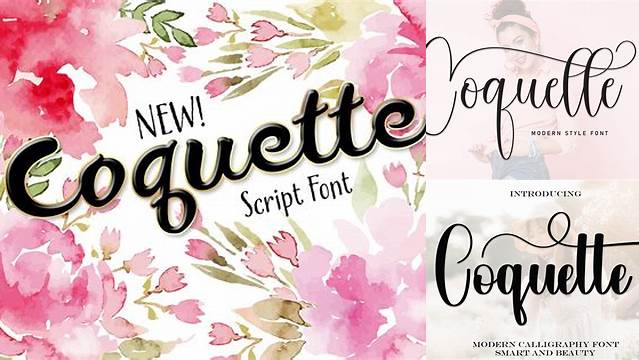
Adobe Coquette Font: Charming Uses & Pairings
Hey guys! Let's dive into the delightful world of Adobe Fonts Coquette! If you're looking to add a touch of whimsy and elegance to your designs, this font might just be your new best friend. In this article, we're going to explore everything about Coquette, from its history and characteristics to its best uses and how to pair it with other fonts. So, grab your favorite beverage, get comfy, and let's get started!
What is Adobe Fonts Coquette?
When we talk about Adobe Fonts Coquette, we're referring to a beautifully crafted typeface that falls into the script and display font categories. It's known for its flowing lines, delicate curves, and a certain je ne sais quoi that makes it stand out. Coquette isn't your run-of-the-mill font; it has personality, charm, and a touch of sophistication that can elevate any project. Think of it as the font equivalent of that perfectly chic outfit you throw on when you want to feel effortlessly stylish.
The design of Coquette Adobe Fonts is inspired by the elegance and flair of vintage calligraphy and hand-lettering. It was created to bring a human touch to digital typography, making it an excellent choice for projects that need a personal and inviting feel. Whether you're designing a wedding invitation, a blog header, or a branding package, Coquette can add that special something that makes your work memorable. The curves and swashes in Coquette are not just decorative; they contribute to the overall readability and flow of the text, making it both beautiful and functional.
Coquette is more than just a pretty face; it's a versatile font that can be used in various contexts. Its elegance makes it a natural fit for projects related to fashion, beauty, and lifestyle. Imagine it gracing the pages of a high-end magazine or adorning the logo of a boutique brand. But don't let its delicate appearance fool you – Coquette can also be used in more playful and informal settings. Think of it on a quirky café menu or a fun social media graphic. It’s this versatility that makes Coquette font Adobe a favorite among designers. The key is to use it thoughtfully and in a way that complements the overall aesthetic of your design.
One of the cool things about Coquette is the attention to detail in its design. Each letterform has been carefully crafted to ensure harmony and balance. The connections between letters are smooth and seamless, giving the font a natural, handwritten feel. This level of craftsmanship is what sets Coquette apart from other script fonts. It’s not just about looking pretty; it’s about creating a cohesive and visually appealing typographic experience. The subtleties in the design, such as the varying stroke weights and the elegant terminals, add depth and character to the font, making it a joy to work with.
Key Characteristics of Coquette Font
Let's break down the key characteristics that make Coquette font Adobe so unique and beloved in the design world. Understanding these features will help you appreciate its nuances and use it effectively in your projects.
Elegant Curves and Swashes: The most defining feature of Coquette is its elegant curves and swashes. These flowing lines give the font a sense of movement and grace, making it perfect for projects that need a touch of sophistication. The swashes, in particular, add a decorative flourish that can elevate headlines and titles. They're not just for show, though; they also contribute to the overall rhythm and flow of the text. The curves and swashes make Coquette visually engaging and memorable, which is why it's often used in branding and marketing materials.
Handwritten Feel: Coquette is designed to mimic the look of handwritten calligraphy, which gives it a personal and inviting quality. This human touch makes it a great choice for projects that need to feel authentic and approachable. The subtle variations in stroke weight and the natural connections between letters contribute to this handwritten feel. When you use Coquette, it's like adding a signature to your design, a mark of quality and craftsmanship. This characteristic makes it especially well-suited for invitations, greeting cards, and personal correspondence.
High Readability: Despite its decorative elements, Coquette maintains a high level of readability. The letterforms are clear and well-defined, and the spacing is carefully considered to ensure that the text is easy to read. This is an important factor, as beauty shouldn't come at the expense of functionality. Coquette strikes a balance between aesthetics and legibility, making it a versatile choice for a wide range of applications. Whether you're using it for body text or headlines, you can be confident that your message will be conveyed clearly.
Versatile Style: Coquette Adobe Fonts isn't a one-trick pony; it's a versatile font that can adapt to different styles and contexts. It can be elegant and sophisticated, playful and whimsical, or even modern and chic, depending on how you use it. This adaptability makes it a valuable asset in any designer's toolkit. You can use it for a wide range of projects, from branding and advertising to web design and print materials. The key is to understand its strengths and use it in a way that complements the overall design.
Part of Adobe Fonts: Being part of the Adobe Fonts library gives Coquette several advantages. It ensures that the font is well-maintained, optimized, and easily accessible to Adobe Creative Cloud subscribers. This also means that you can use Coquette in your projects without worrying about licensing issues or compatibility problems. Adobe Fonts integrates seamlessly with Adobe Creative Suite applications, making it easy to use Coquette in your designs. This accessibility and reliability make Coquette a practical choice for professional designers and hobbyists alike.
Best Uses for Coquette Font
Now that we know what makes Coquette so special, let's explore the best ways to use this charming typeface. Knowing where Coquette shines will help you make informed decisions in your design projects and ensure that you're using it to its full potential.
Wedding Invitations and Stationery: Coquette is a natural fit for wedding invitations and stationery. Its elegant curves and handwritten feel add a touch of romance and sophistication to any wedding-related design. Imagine your names beautifully scripted in Coquette on a save-the-date card or a thank-you note. The font's delicate appearance complements the celebratory nature of weddings, making it a popular choice for couples who want to create a memorable and stylish impression. The swashes can be used to add extra flair to headlines and titles, while the overall readability ensures that all the important details are conveyed clearly.
Branding for Feminine Businesses: If you're branding a business that caters to a feminine audience, Coquette can be an excellent choice. Its soft, elegant style aligns well with industries such as beauty, fashion, and lifestyle. Think of a logo for a boutique skincare brand or the website design for a women's clothing store. Coquette can help convey a sense of sophistication and style, attracting the right customers and creating a strong brand identity. The font's versatility allows it to be used in various branding materials, from business cards to social media graphics, ensuring a consistent and cohesive look.
Blog Headers and Website Design: Coquette can add personality and charm to blog headers and website designs. Its unique character makes it stand out and grab the attention of visitors. Using Coquette in your website's headings and titles can help create a visually appealing and engaging experience for your audience. However, it's important to use it sparingly and in combination with a more readable body font to ensure that your website is user-friendly. Coquette can also be used in website graphics and banners to add a touch of elegance and style.
Greeting Cards and Personalized Gifts: For greeting cards and personalized gifts, Coquette's handwritten feel adds a personal touch that's hard to resist. Whether you're designing a birthday card, a thank-you note, or a custom print, Coquette can help convey your message in a heartfelt and stylish way. The font's elegance makes it suitable for various occasions, from birthdays and anniversaries to holidays and celebrations. The swashes can be used to add extra decoration and make your design even more special. Using Coquette in personalized gifts shows that you've put thought and care into your creation, making it all the more meaningful.
Social Media Graphics: In the world of social media, visual appeal is crucial. Coquette can help your graphics stand out and attract attention. Its unique style makes it a great choice for creating eye-catching posts, stories, and ads. Use Coquette in your headlines and captions to add a touch of elegance and personality to your social media content. However, keep in mind that social media is a fast-paced environment, so it's important to use Coquette sparingly and in combination with clear and concise messaging. The font's versatility allows it to be used in various social media platforms, from Instagram and Pinterest to Facebook and Twitter.
Pairing Coquette with Other Fonts
Font pairing is an art, and mastering it can elevate your designs from good to great. When it comes to pairing Coquette with other fonts, the goal is to find typefaces that complement its elegance and readability without overshadowing it. Here are some tips and suggestions to help you create harmonious and visually appealing designs.
Serif Fonts: Pairing Coquette with a classic serif font can create a sophisticated and timeless look. Serif fonts, with their small decorative strokes at the end of each letter, have a traditional and formal feel that complements Coquette's elegance. Fonts like Times New Roman, Garamond, or Baskerville can work well with Coquette, especially in projects that need a touch of classic charm. The contrast between Coquette's flowing curves and the serif font's structured letterforms can create a visually interesting and balanced design. When using serif fonts with Coquette, make sure to choose a typeface that's highly readable, especially for body text.
Sans-Serif Fonts: Sans-serif fonts, which lack the decorative strokes of serif fonts, can provide a clean and modern contrast to Coquette's elegance. Pairing Coquette with a sans-serif font can create a balanced and contemporary design. Fonts like Helvetica, Arial, or Open Sans are good choices for body text when using Coquette for headlines or titles. The simplicity of the sans-serif font allows Coquette to shine without being overpowered. This combination is particularly effective in web design, where readability is crucial. When choosing a sans-serif font, consider its weight and style to ensure it complements Coquette's personality.
Script Fonts (Use Sparingly): While Coquette is a script font itself, it can sometimes be paired with another script font, but this should be done sparingly and with caution. Using two script fonts in the same design can be tricky, as they can easily clash and create a cluttered look. If you choose to pair Coquette with another script font, make sure the second font is significantly different in style and weight. A lighter, more subtle script font can work well as a secondary typeface, but avoid using two highly decorative script fonts together. The key is to create contrast and hierarchy, ensuring that Coquette remains the focal point of your design.
Monospace Fonts: Monospace fonts, where each character occupies the same amount of horizontal space, can create an interesting contrast with Coquette's flowing curves. Pairing Coquette with a monospace font can give your design a modern and technical feel. This combination is often used in web design and branding for tech-related businesses. However, like script fonts, monospace fonts should be used sparingly and strategically. They work best for small amounts of text, such as captions or code snippets. When using a monospace font with Coquette, make sure to choose a typeface that's highly readable and complements the overall design aesthetic.
Consider the Hierarchy: When pairing fonts, it's important to consider the hierarchy of your design. Use Coquette for headlines, titles, or other prominent text elements, and choose a more readable font for body text. This will help guide the reader's eye and ensure that your message is conveyed clearly. The font pairing should support the overall visual hierarchy, with Coquette drawing attention to key elements and the secondary font providing clarity and readability. Experiment with different font sizes and weights to create a visual hierarchy that's both effective and aesthetically pleasing.
Conclusion: The Enduring Charm of Adobe Fonts Coquette
So there you have it, guys! A comprehensive look at the enchanting Adobe Fonts Coquette. From its elegant curves to its versatile style, Coquette is a typeface that truly stands out. Whether you're designing wedding invitations, branding a business, or creating social media graphics, Coquette can add a touch of sophistication and charm to your projects. Its handwritten feel and high readability make it a joy to work with, and its availability within the Adobe Fonts library ensures that it's easily accessible to designers of all levels.
Remember, the key to using Coquette effectively is to understand its strengths and limitations. Pair it thoughtfully with other fonts, use it in contexts where its elegance can shine, and don't be afraid to experiment with its various features. With a little creativity and skill, you can harness the full potential of Coquette Adobe Fonts and create designs that are both beautiful and effective. So go ahead, give it a try, and let Coquette bring its magic to your next project!